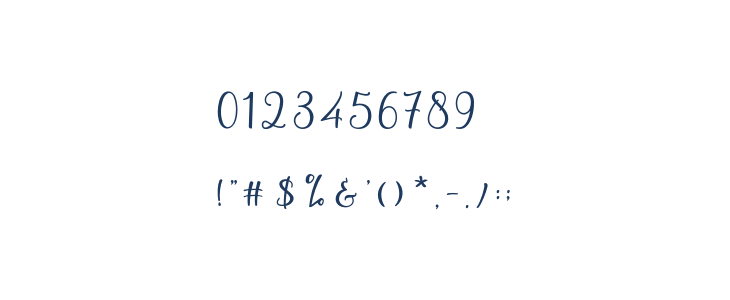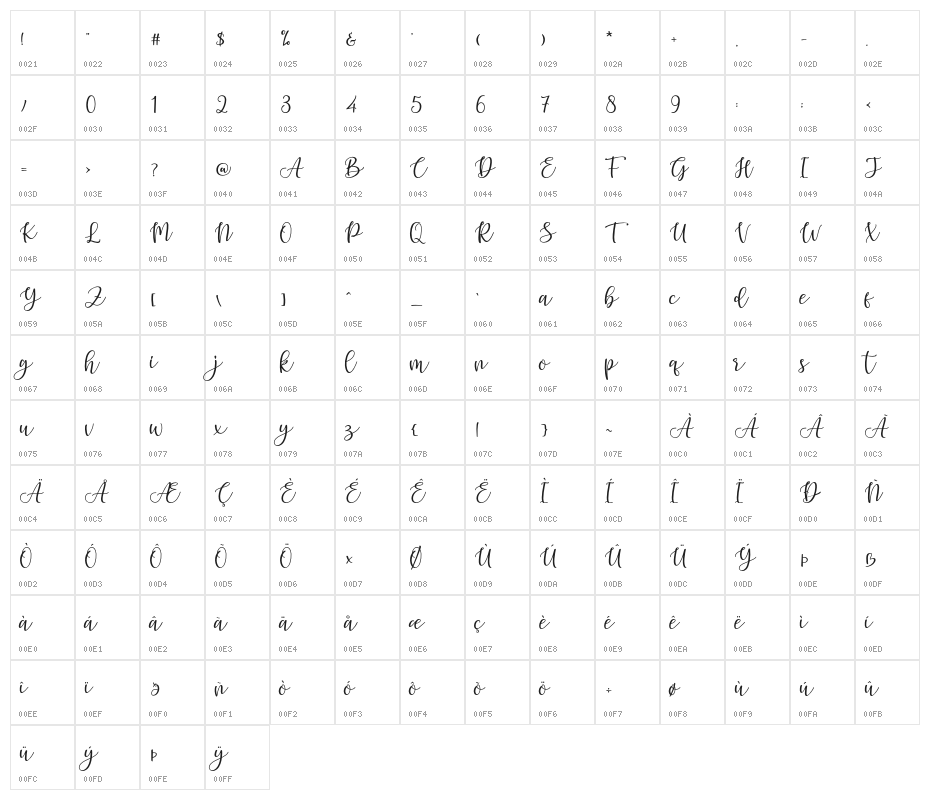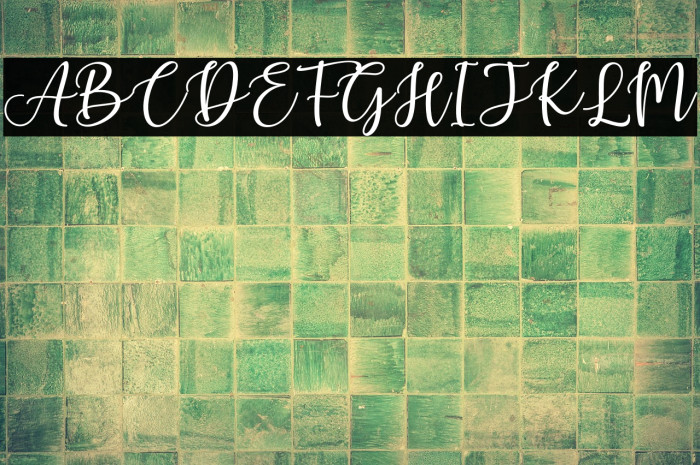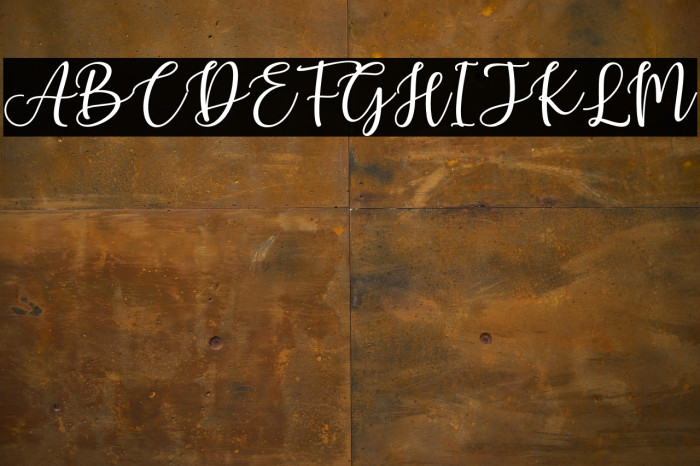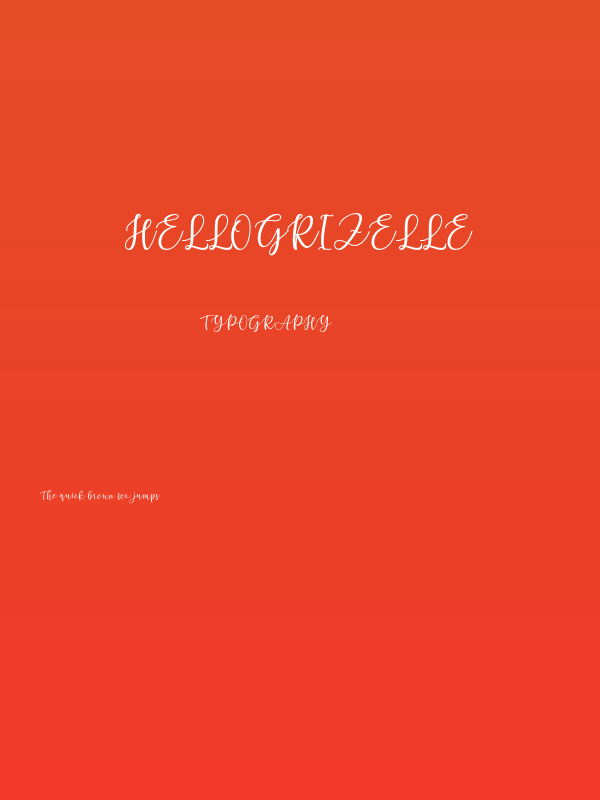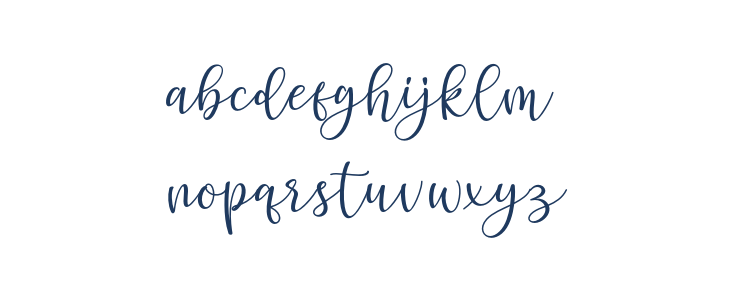
HelloGrizelle Font
✎ Calligraphic
HelloGrizelle Description
This elegant script font features a flowing, cursive style with smooth, rounded edges and a consistent stroke width. The uppercase letters are ornate and slightly larger than the lowercase, providing a graceful contrast. The lowercase letters are connected, enhancing the fluidity and continuity of the text. Numbers and special characters maintain the same stylistic approach, ensuring a cohesive appearance across all elements. The font's design is reminiscent of traditional calligraphy, yet it maintains a modern touch, making it versatile for various applications.
| Use Case | Logos, Invitations, Decorative text |
| Proposed Projects | Ideal for wedding invitations, elegant branding, greeting cards, and decorative quotes. |